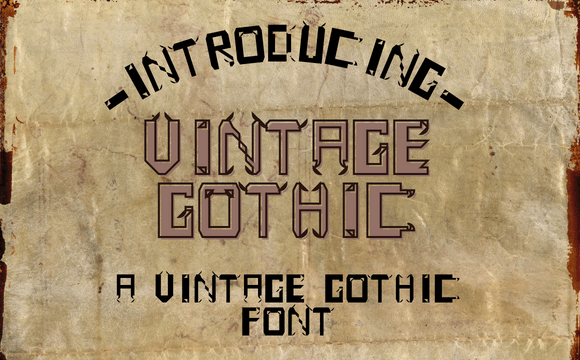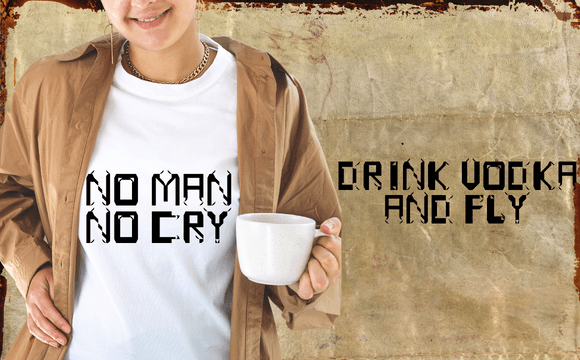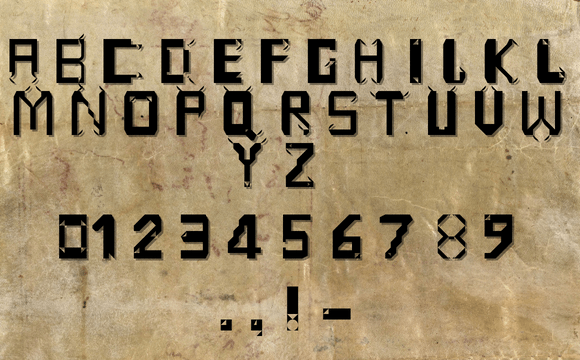
Vintage Gothic Font
About Vintage Gothic Font
Vintage gothic Capital is a bold, rough textured and thick lettered slab serif font. It will elevate a wide range of crafting ideas, from cards, to branding, labels and much more.